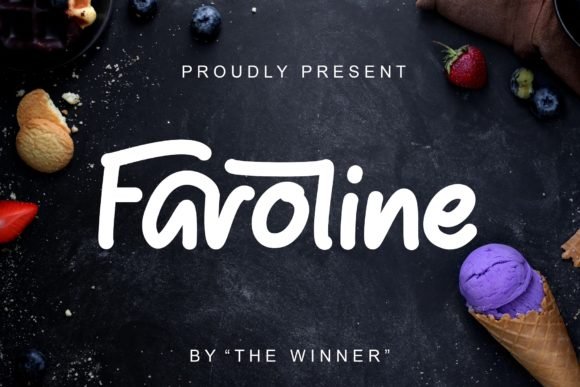
Discover the Magic of the Faroline Font
There’s nothing quite like the thrill of stumbling upon a new design element that sparks inspiration. It’s the moment when a blank canvas transforms into a world of endless possibilities. For designers, this moment is a reminder that sometimes, all it takes is a fresh perspective to elevate a project from ordinary to extraordinary.
Enter the Faroline Font, a sweet and friendly paintbrush display font designed to add a unique touch to any design. Whether you’re working on a web design, business card, or any other creative project, this font is sure to bring a smile to your face and a touch of personality to your work. With its versatility and charm, the Faroline Font is a valuable addition to any designer’s toolkit.
Faroline Font Key Features
- Unique Characteristics: Faroline Font features a unique blend of modern and vintage elements, with intricate details and subtle texture.
Faroline Font Review
As a designer, I’ve had the chance to work with Faroline Font, and I’m excited to share my honest review with you.
- Unique charm: Faroline Font has a quirky, hand-drawn feel that’s perfect for adding personality to your designs.
- Good for body text: The font is legible and easy to read, making it a great choice for long blocks of text.
- Cool for titles: The font’s flair and character make it a great choice for headings and titles.
- Limited versatility: While Faroline Font is great for some projects, it may not be the best choice for more formal or professional designs.
- Not ideal for headings at small sizes: The font’s charm can become lost at very small sizes, making it less effective for headings.
Overall, I think Faroline Font is a great addition to any designer’s toolkit. While it may have some limitations, its unique charm and legibility make it a great choice for the right projects.
The Faroline font is suitable for various design projects, including:
- Brand identity and logos
- Print and digital advertising Alternatives to Faroline Font